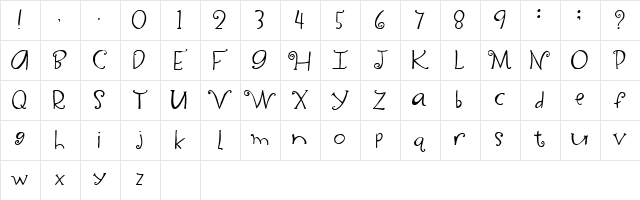
Complete 2Peas David Walker Regular glyph index. Displaying only characters natively supported by 2Peas David Walker Regular font.
2Peas David Walker is a composed and adaptable typeface that performs quietly and consistently across a wide range of design contexts.